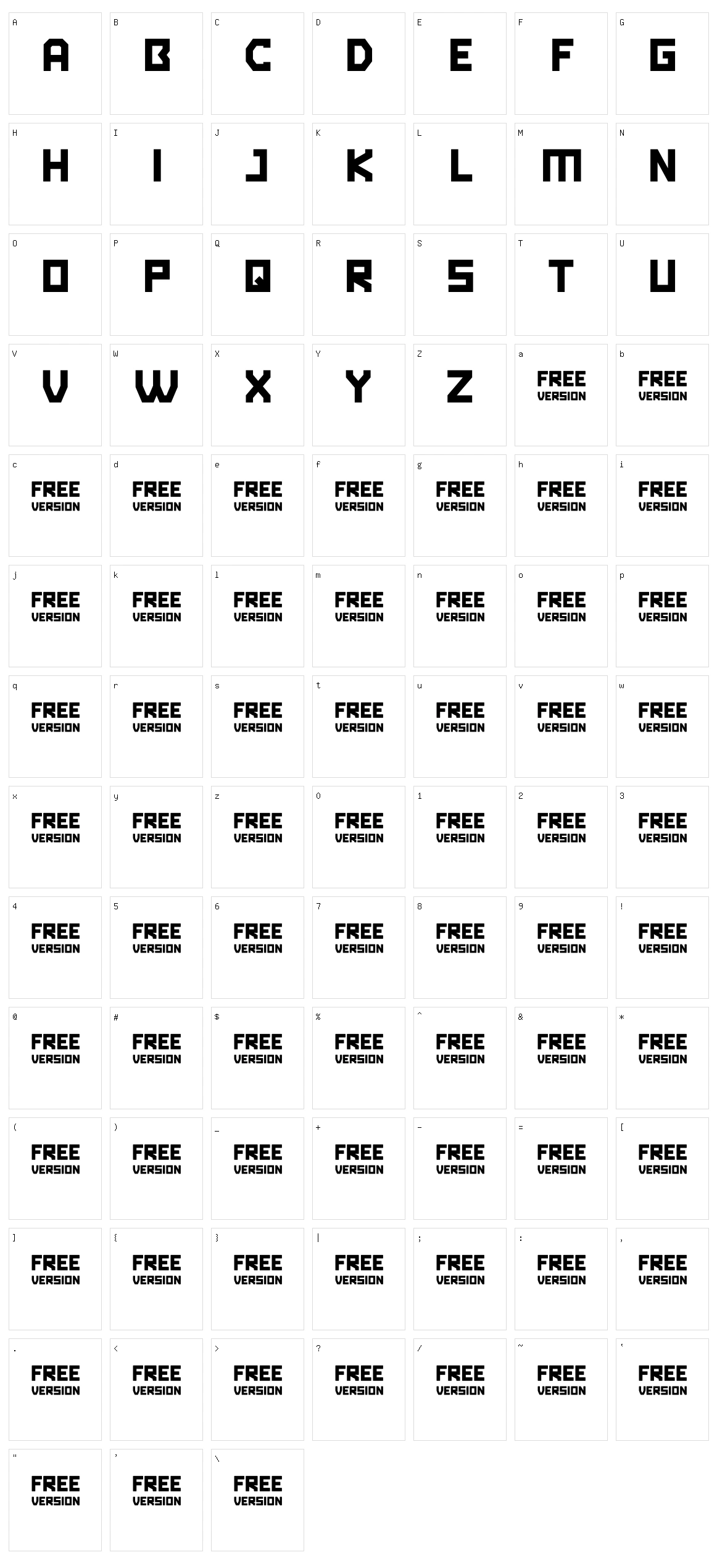
The free font Robot is carefully designed by Imagi Factory, showcasing a thoughtful balance of creativity and usability and falls under the Square font style. When you download the ZIP file, it contains only 4.28 KB of font files, making it lightweight and quick to download. Please review the license details below to understand permitted usage and distribution rights. If license information is not available, we recommend using this font for personal projects only or contacting the author directly for commercial usage permissions.